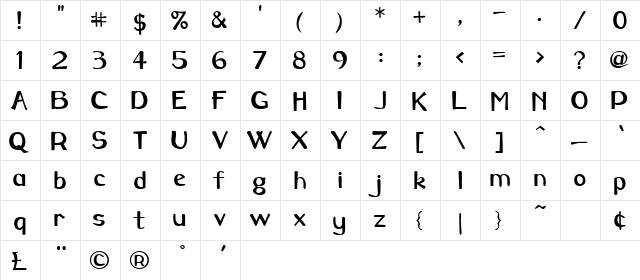
French Creek Bold Regular
Design Context for French Creek Bold Typeface
French Creek Bold takes a measured approach to typography — its balanced proportions and neutral character make it a reliable workhorse for both digital and print work. Its bold stroke weight gives it real presence on the page.